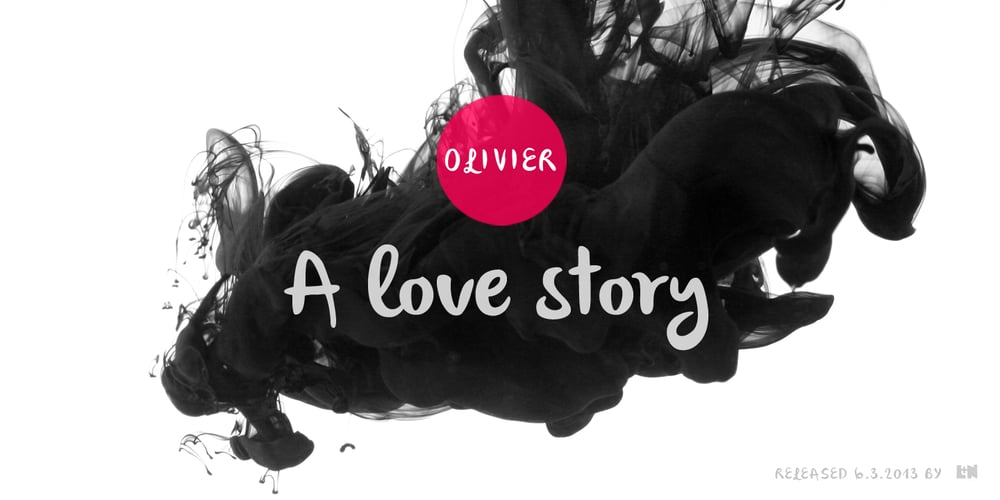
Olivier
Olivier font
Olivier Font Family was designed by Ursula Hitz and published by Letters&Numbers. Olivier contains 1 styles and family package options. Olivier is based on painted black ink letters. Inspiration for this typeface is fluidity of wine. Shifting base-, mean- and cap lines, varying tails and ascenders give it an organic, playful feel. The font is suitable for logo types, short paragraphs and headings.